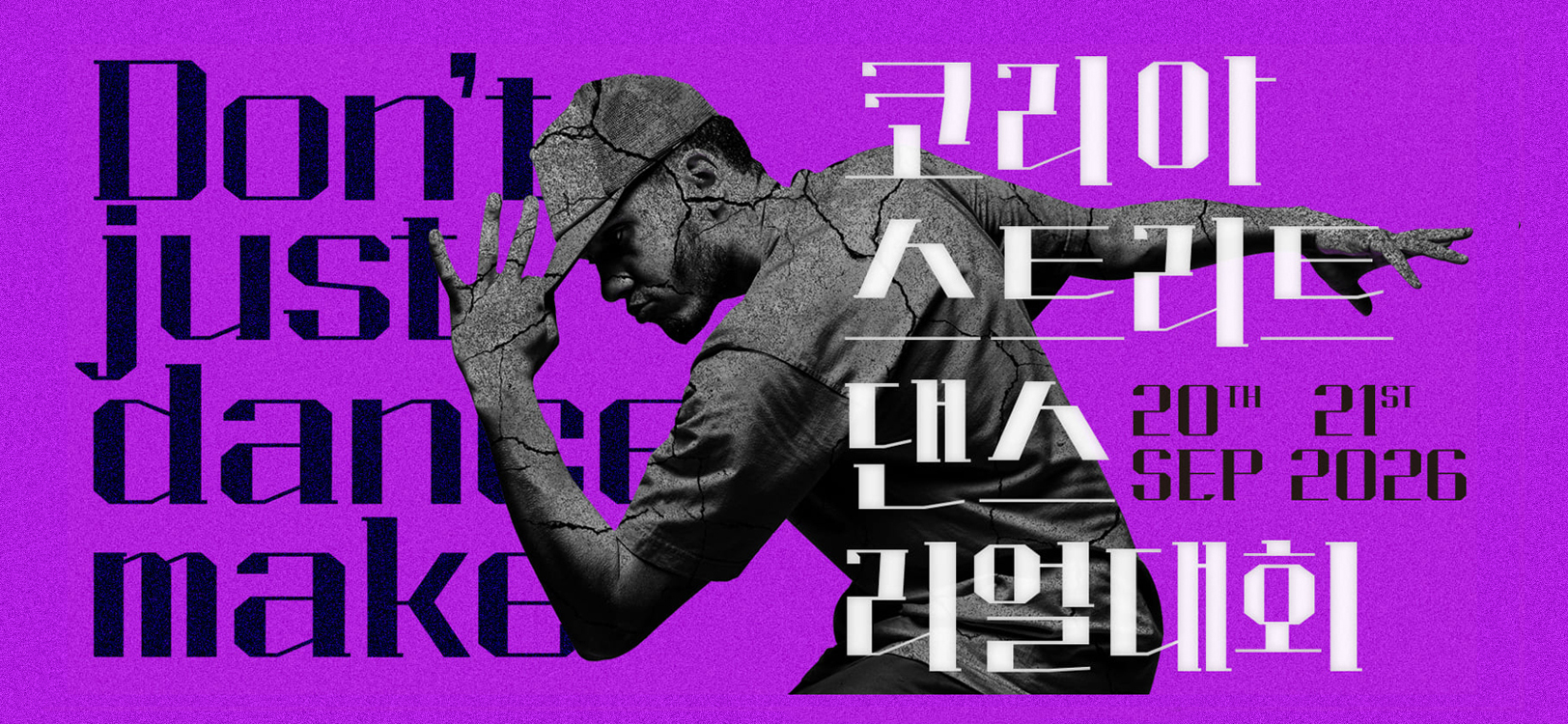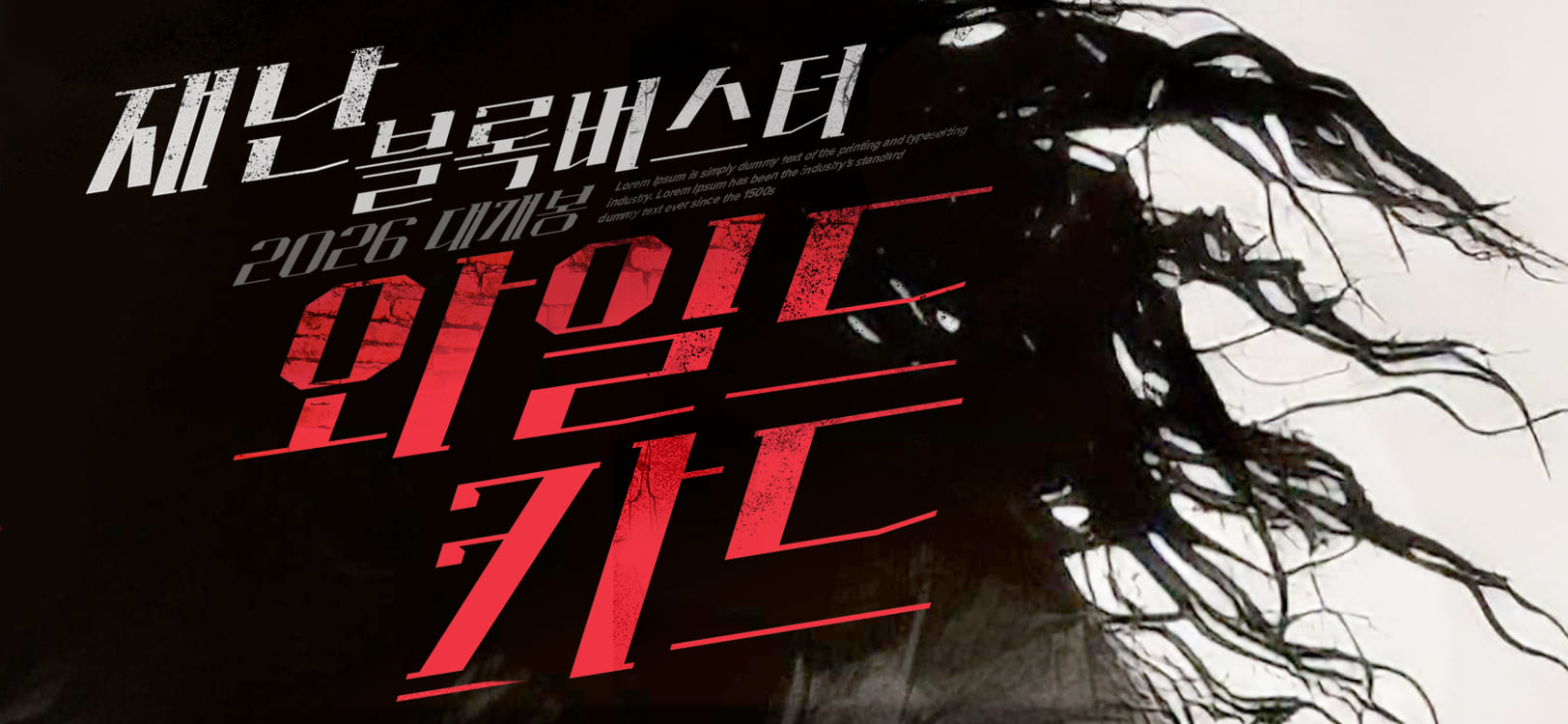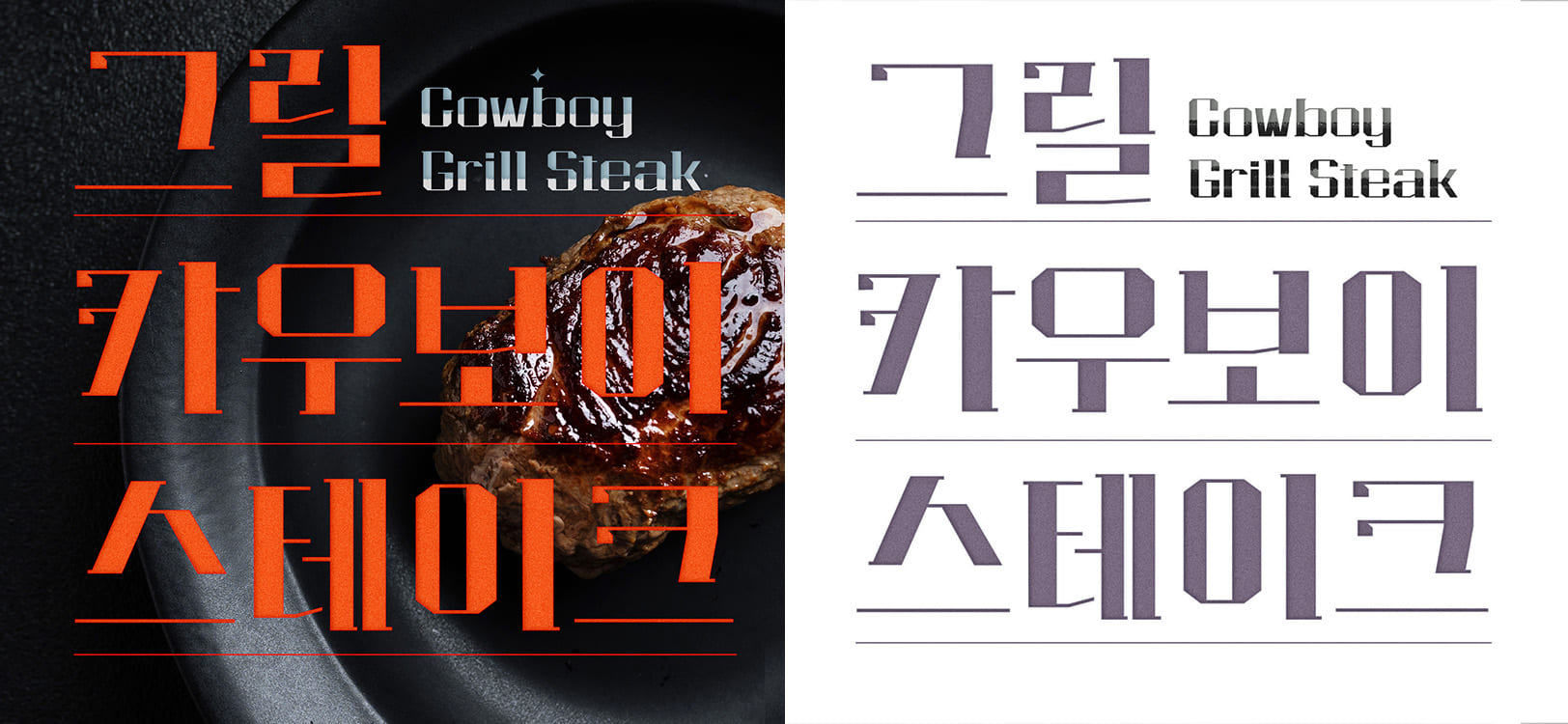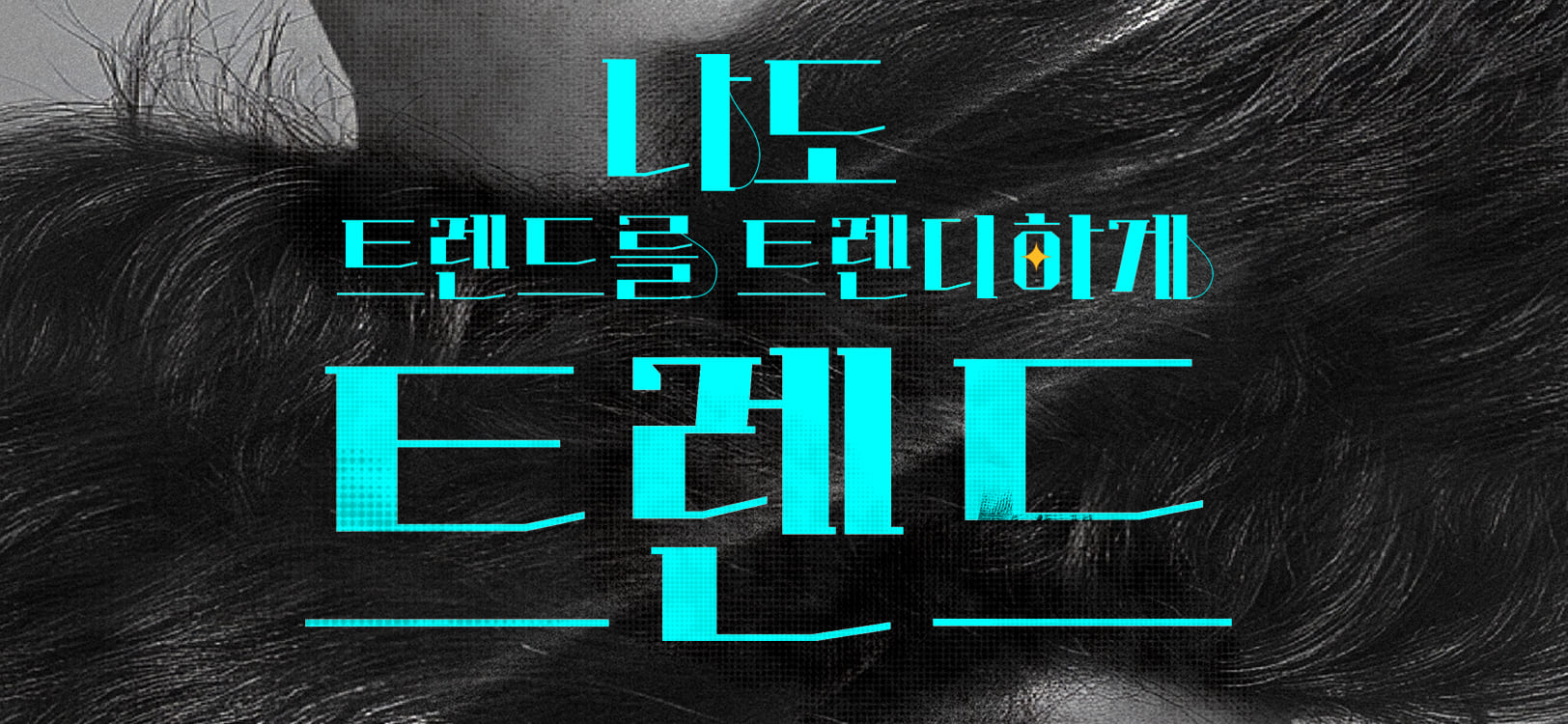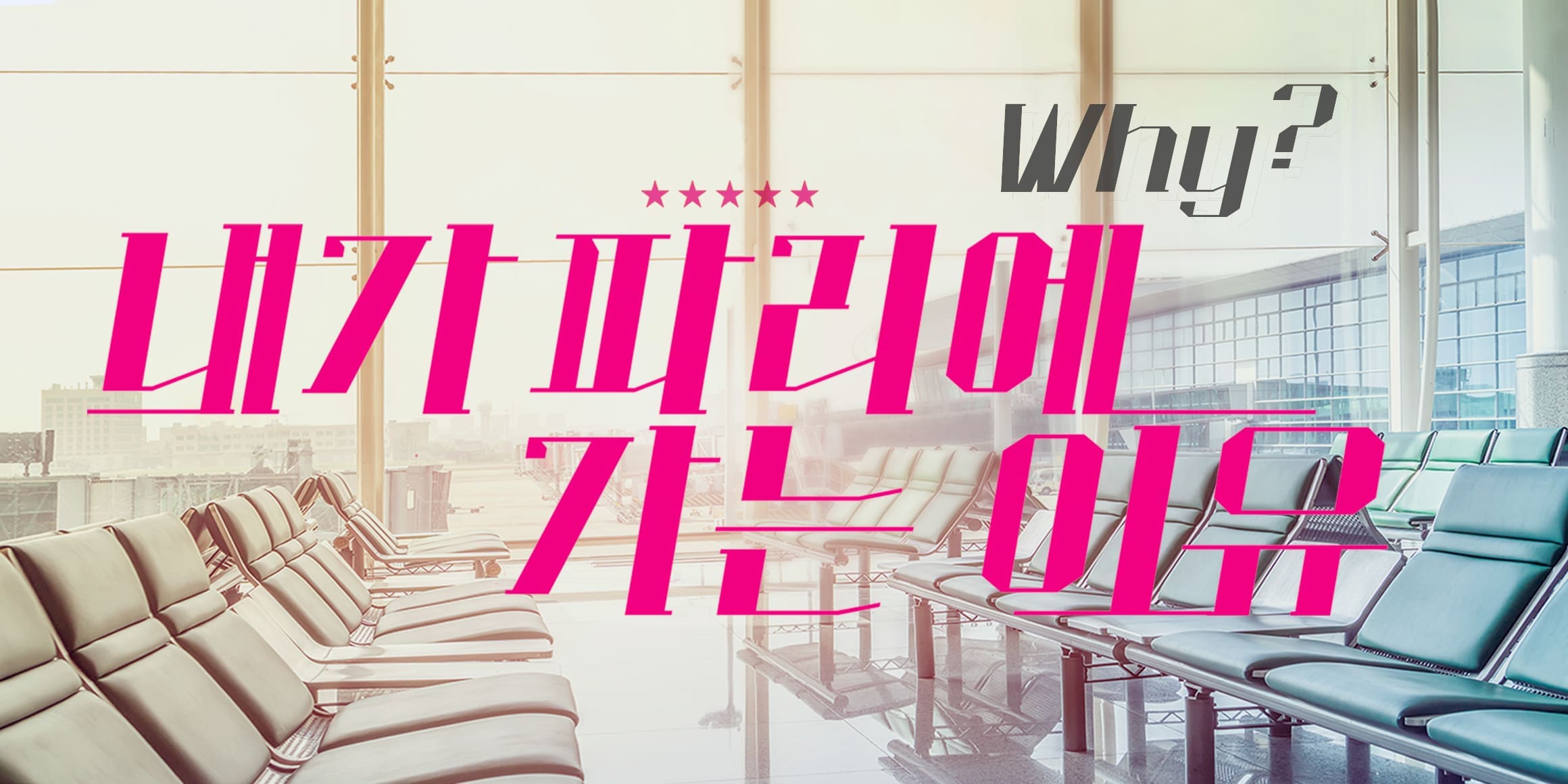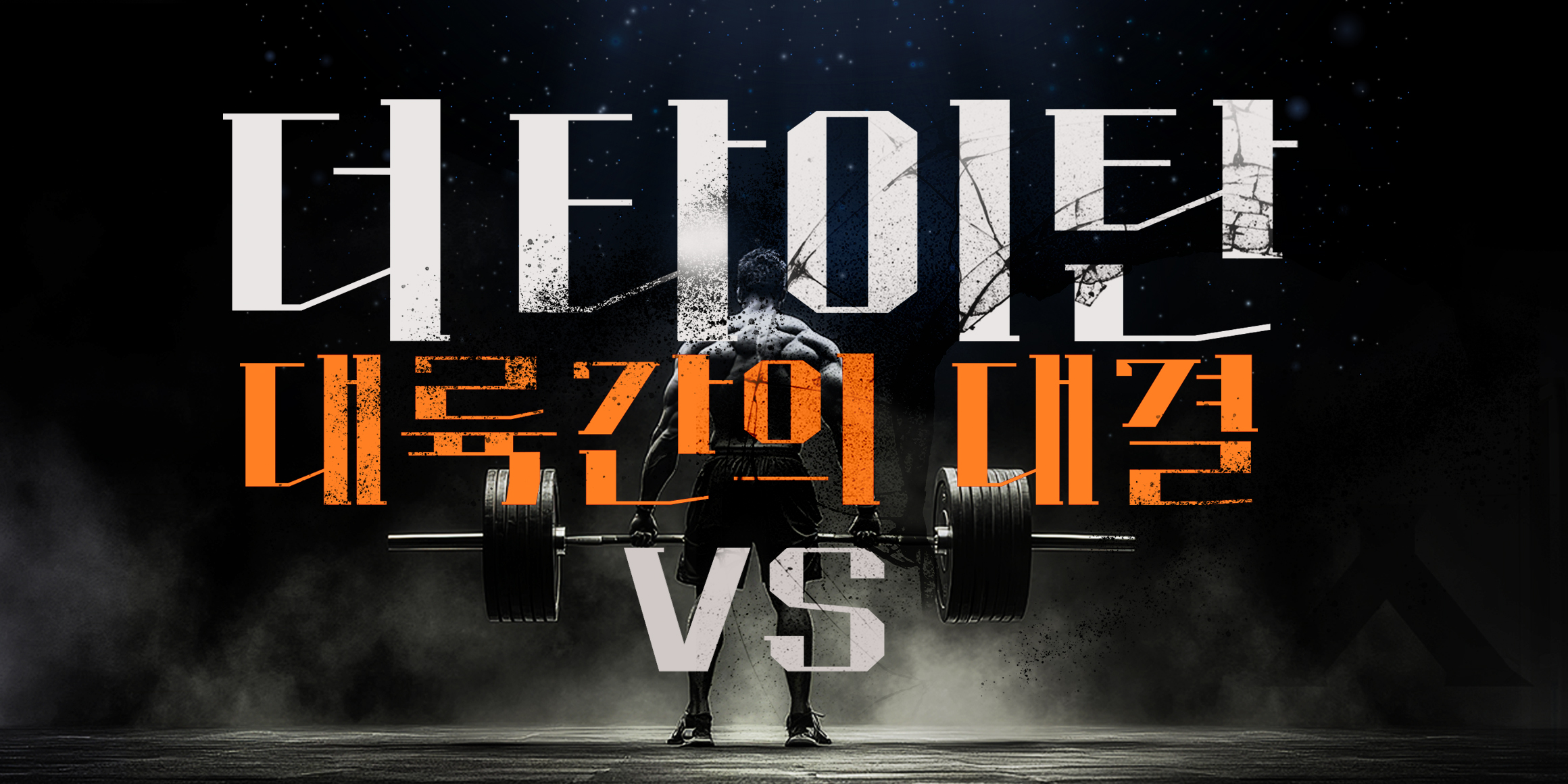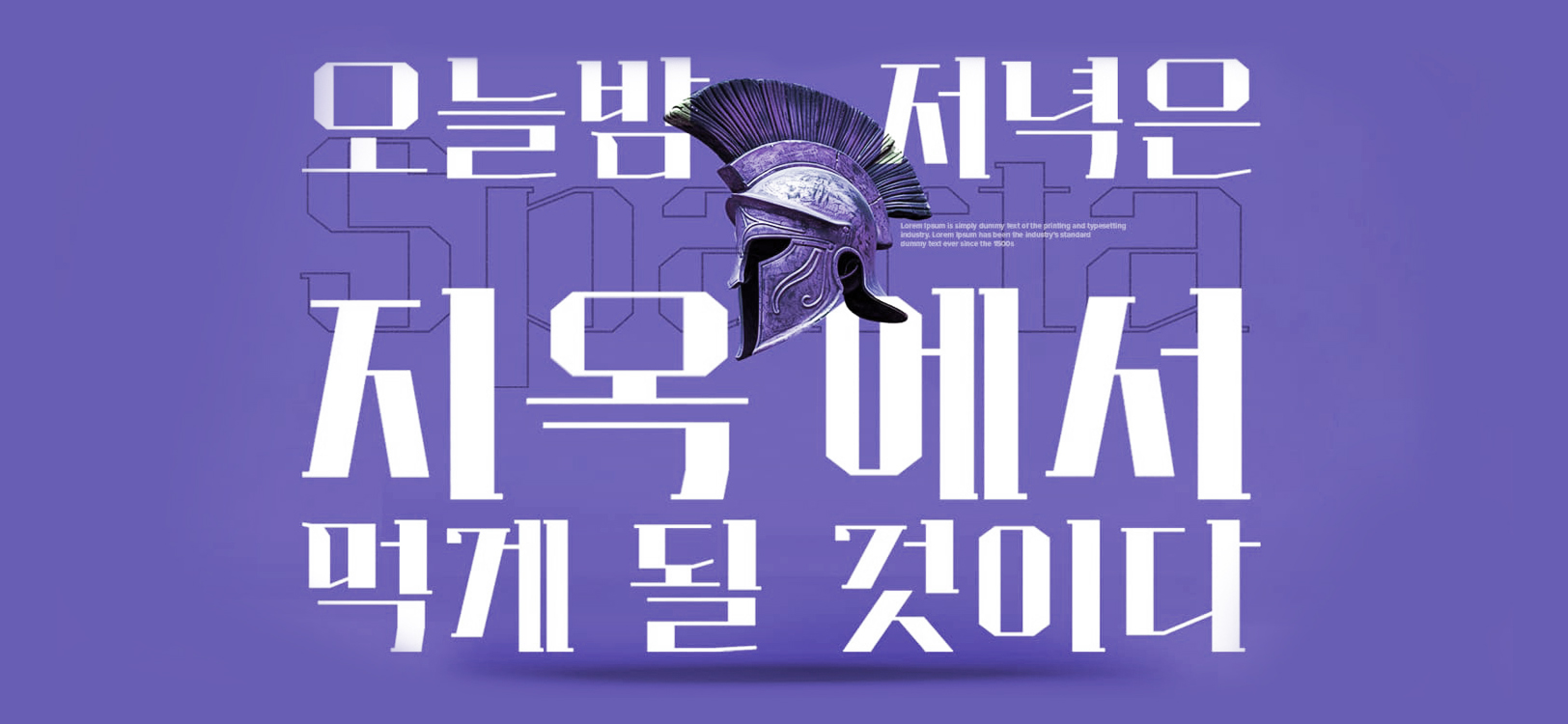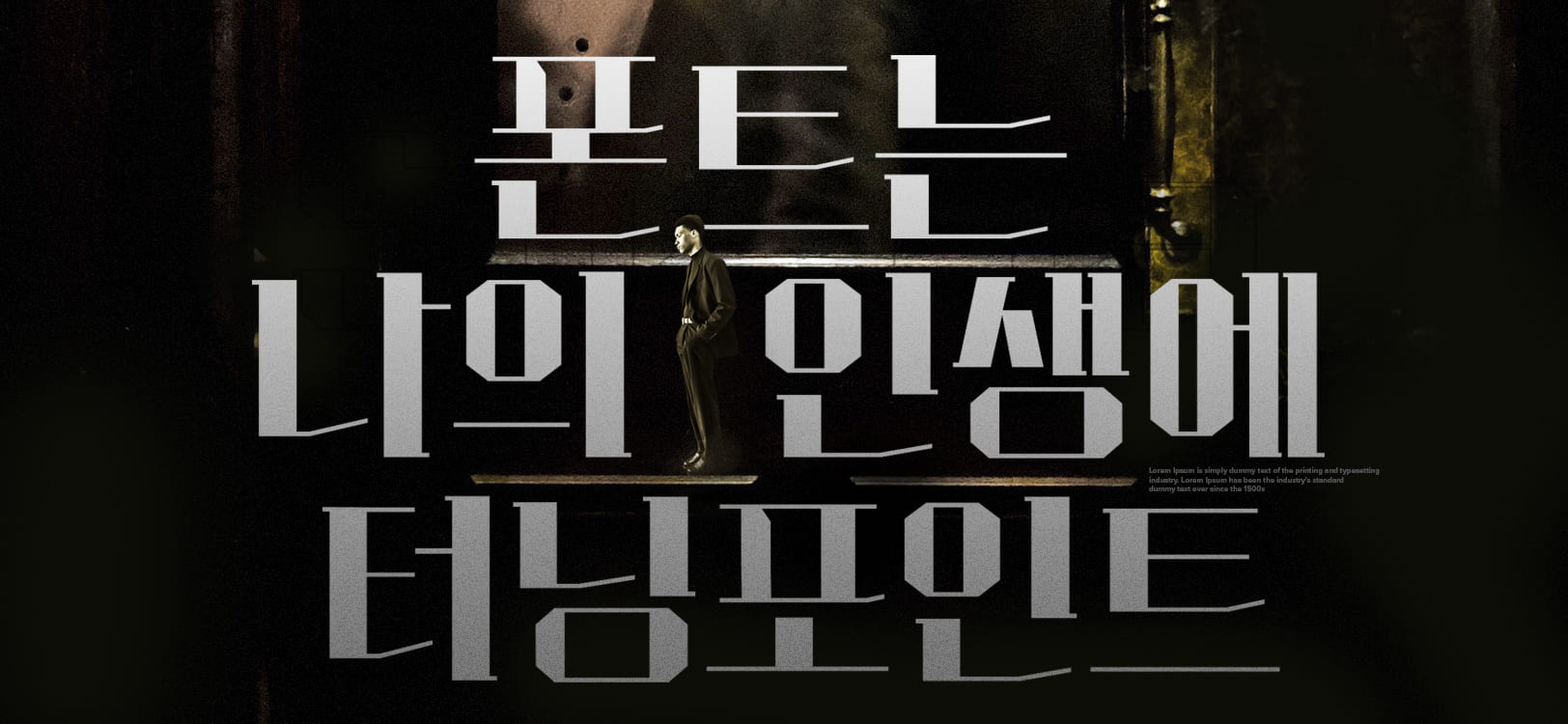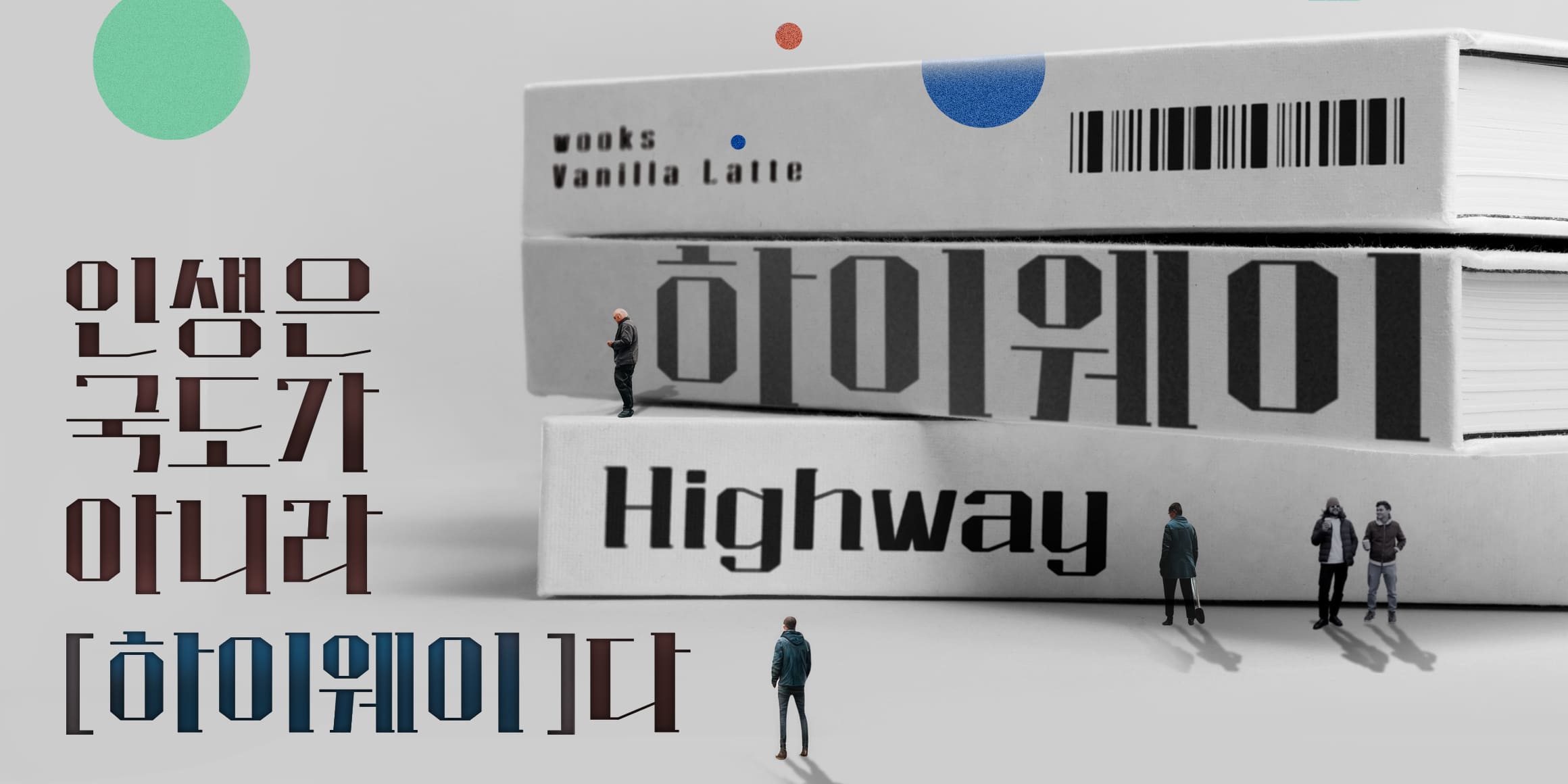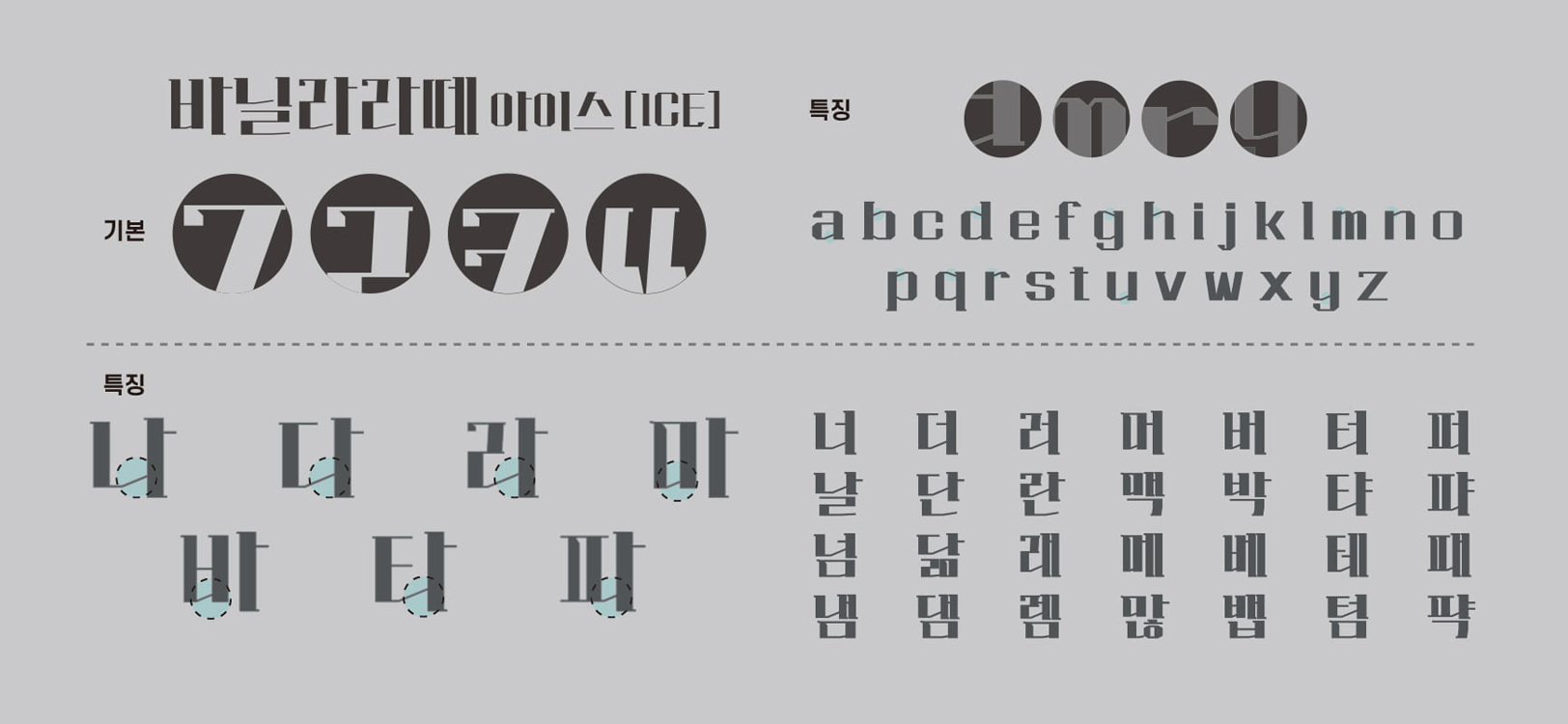
Hot
Ice
The basic vanilla latte hot [HOT] is based on the 'ㄱ,ㄷ' shape inspired by the luxurious coffee cup handle,
We created a stylish impression and emphasized the contrast of the strokes to complete the design that can be seen at a glance.
Vanilla latte ice [ICE] is a style that adds personality to this basic type,
'ㄴ, ㄷ, ㄹ, ㅌ, ㅍ' consonants are naturally connected to vowels such as 'ㅏ, ㅓ, ㅕ, ㅑ, ㅖ, ㅒ'
It contains a fresher and more lively atmosphere.
- WOOKS 바닐라라떼 / WOOKS Vanillalatte